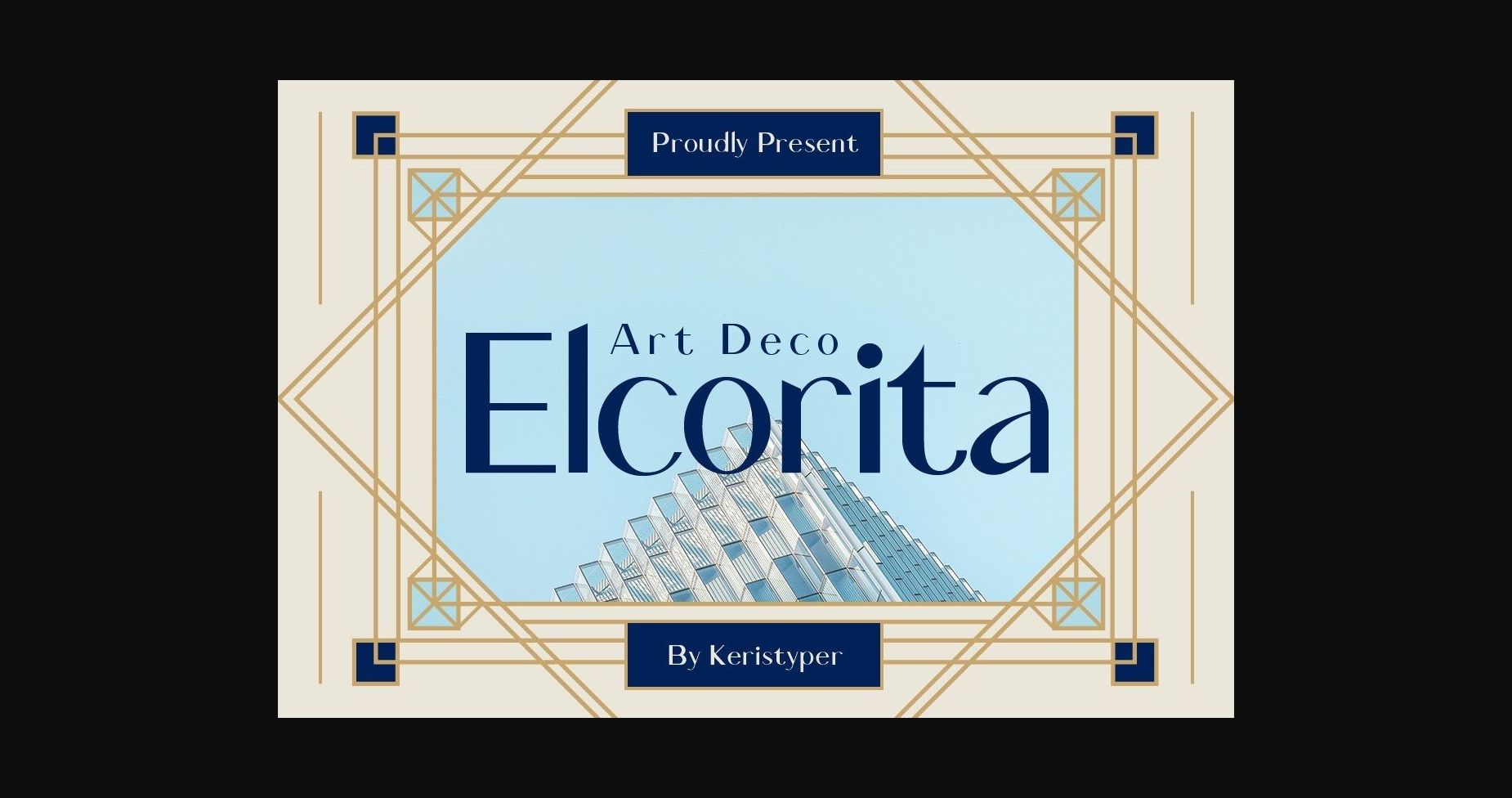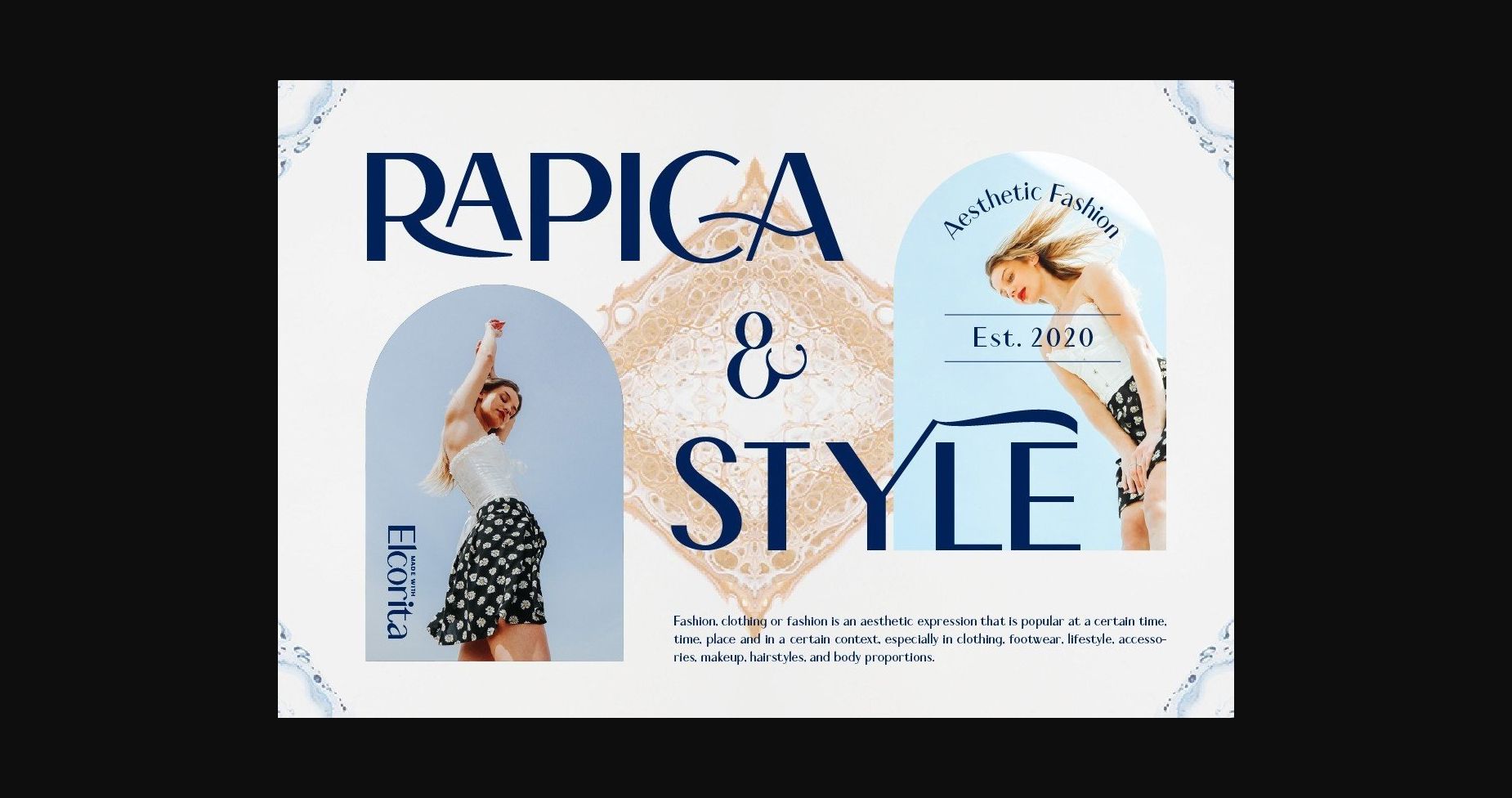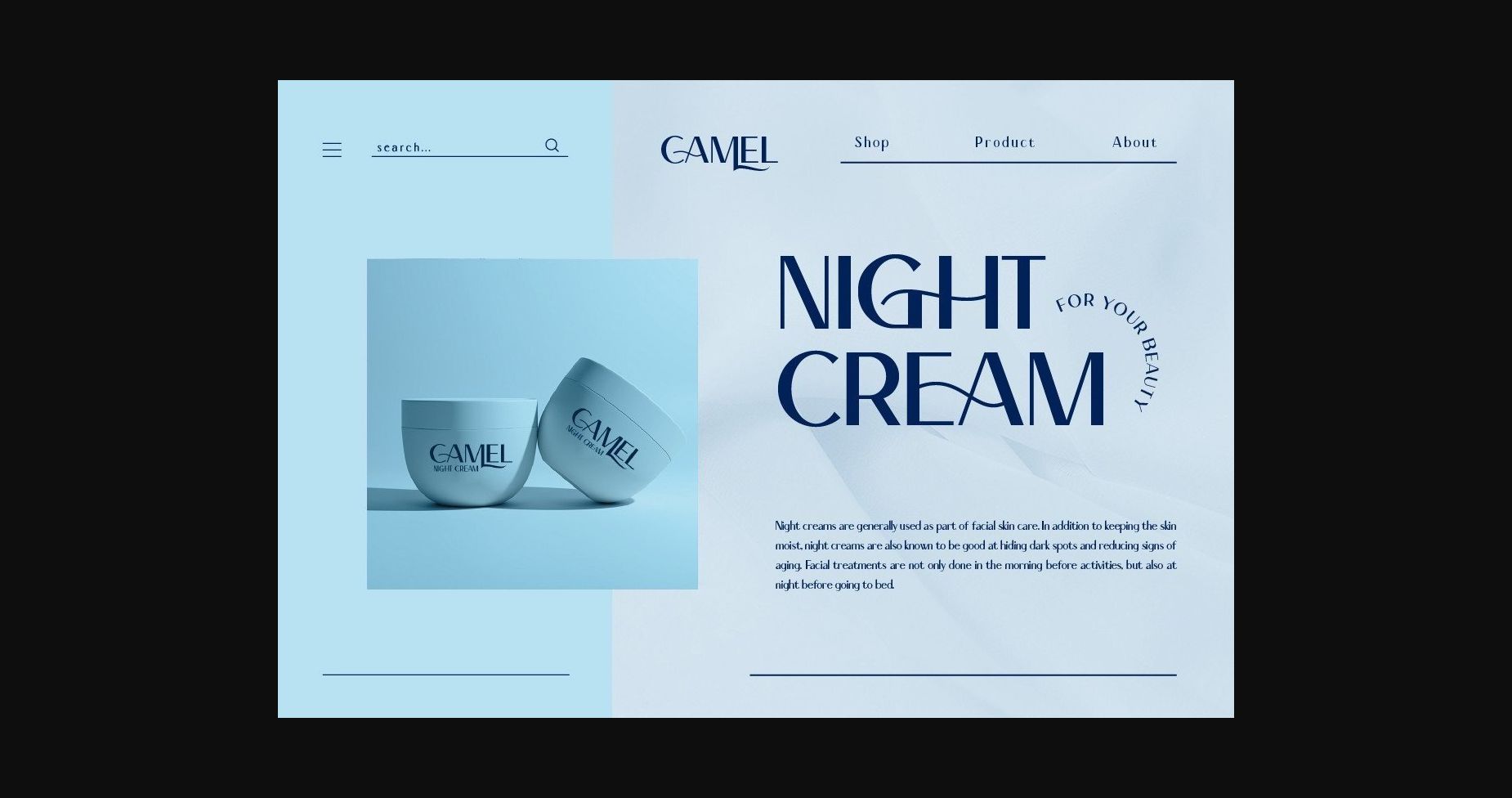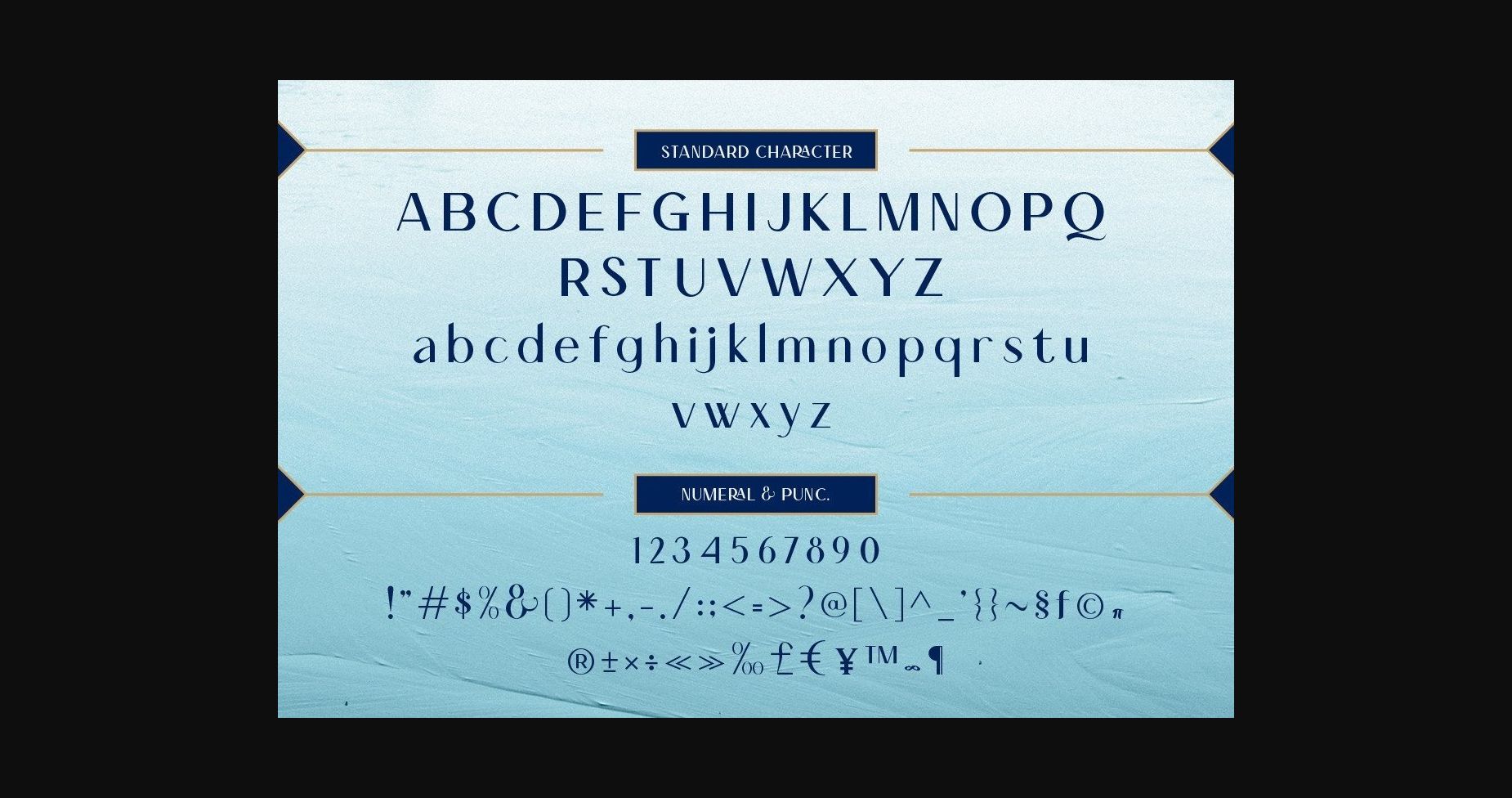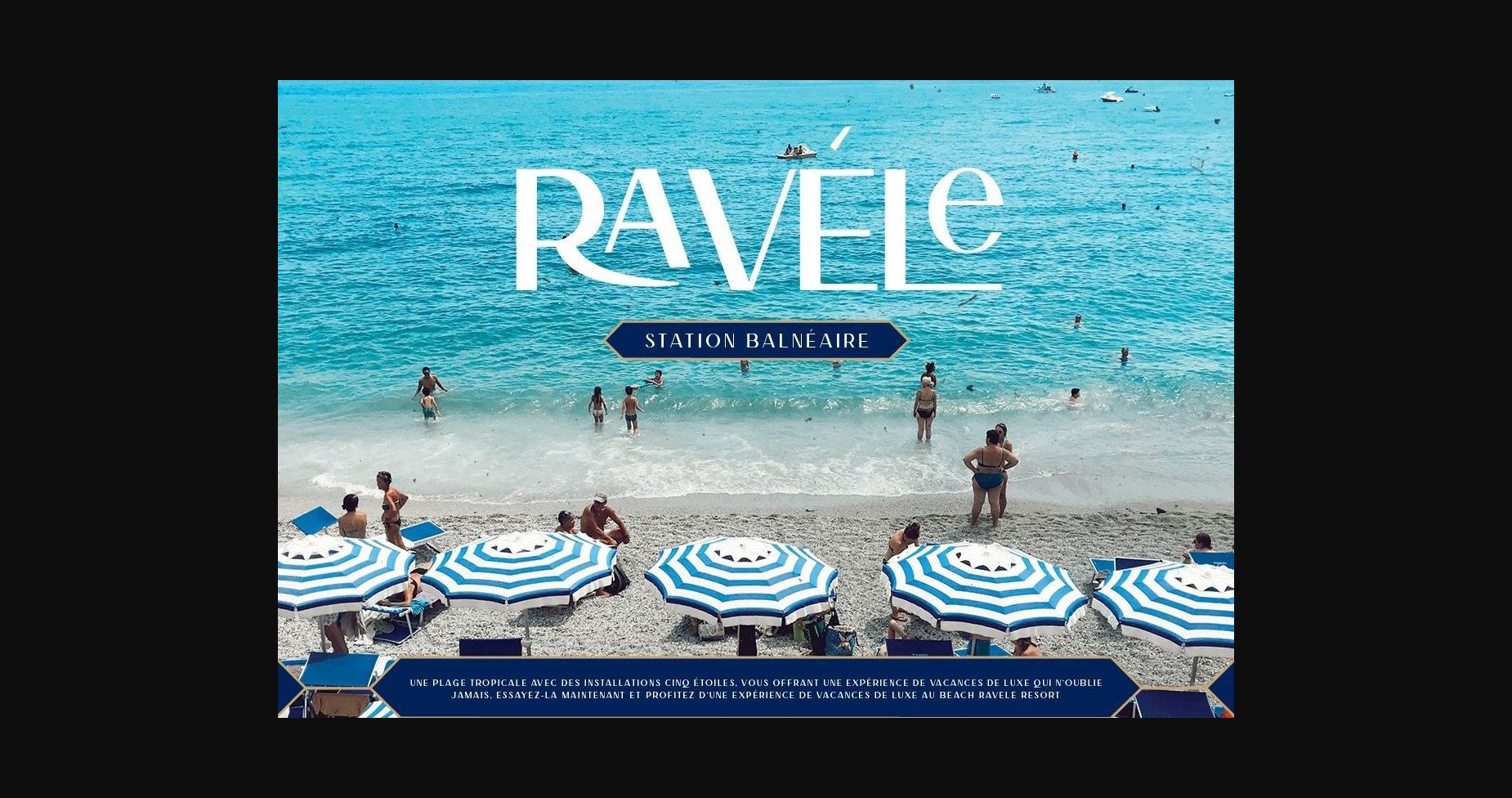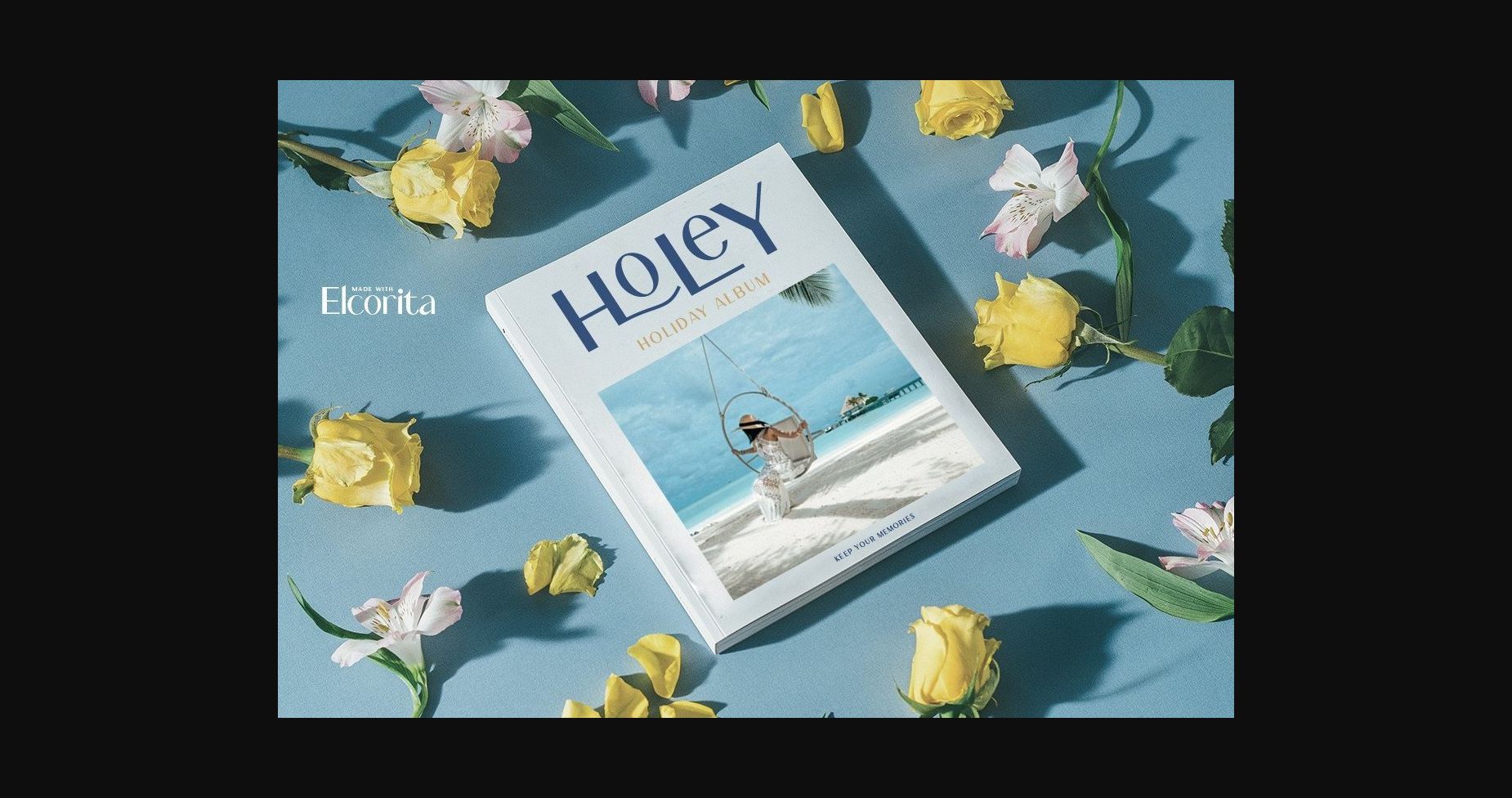
About Elcorita Font
Introducing Elcorita – A Gorgeous modern sans serif art deco inspired with bold contras, clean and simple. This font is good for logo design, Social media, Movie Titles, Books Titles, short text even long text letters, and good for your secondary text font with sans or serif.